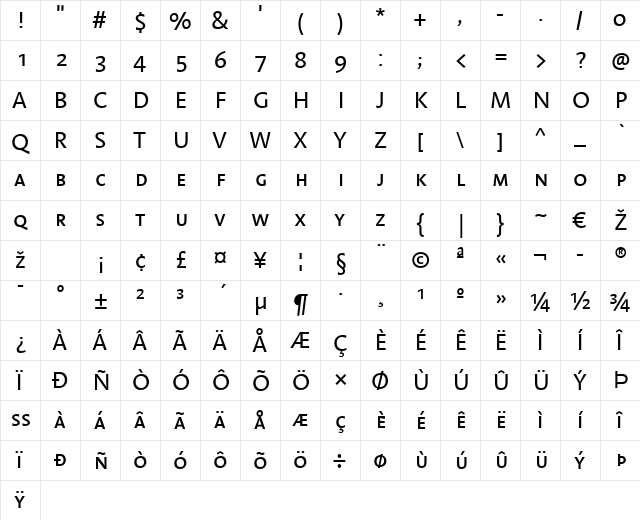
LTAromaSC Regular
| Designer | Tim Ahrens |
Design Context for LTAromaSC Typeface
LTAromaSC is a composed and adaptable typeface that performs quietly and consistently across a wide range of design contexts.